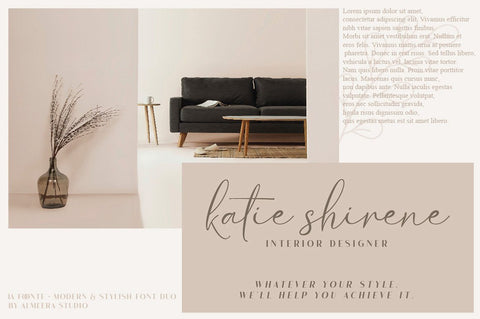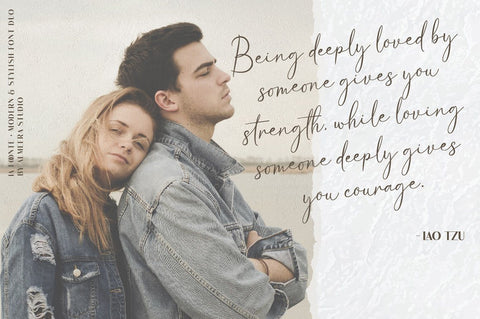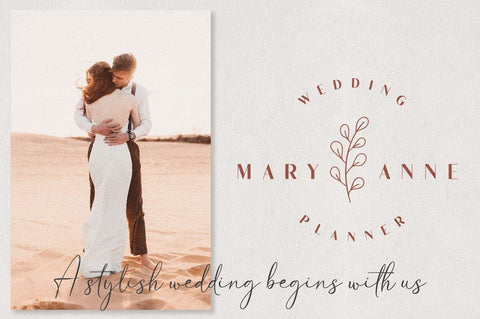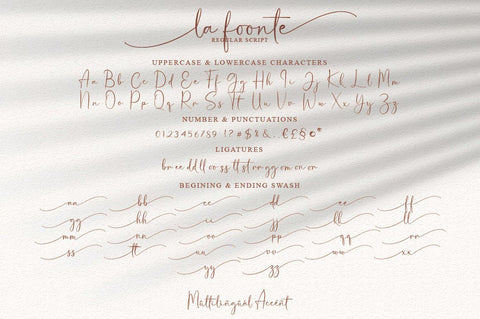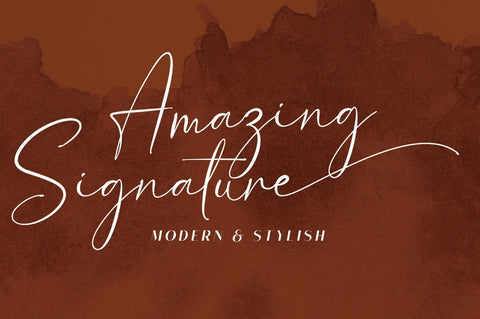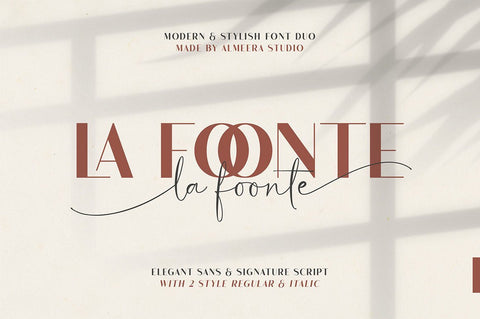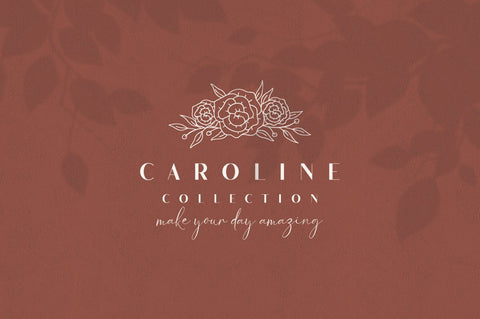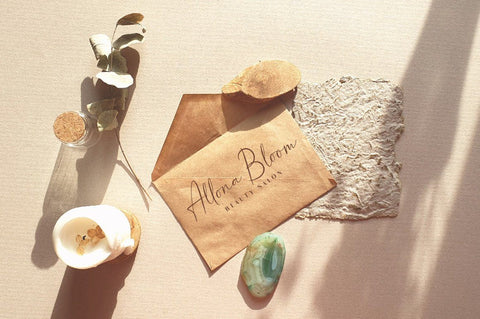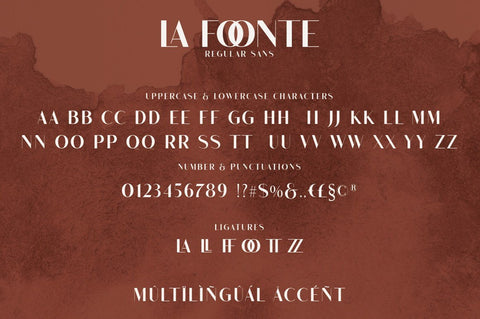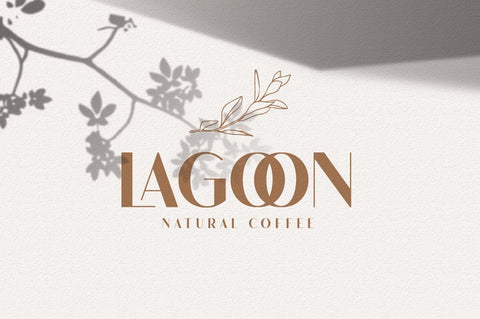
La Foonte | Sans Script Font Duo
Introducing our new font La Foonte. La Foonte is a luxurious paired typography, consisting of an elegant script & stylish Sans that is equipped with ligature.this is perfect for branding, logos, invitation, signature and more.
La Foonte Features :
- Number
- Punctuation
- Multilingual